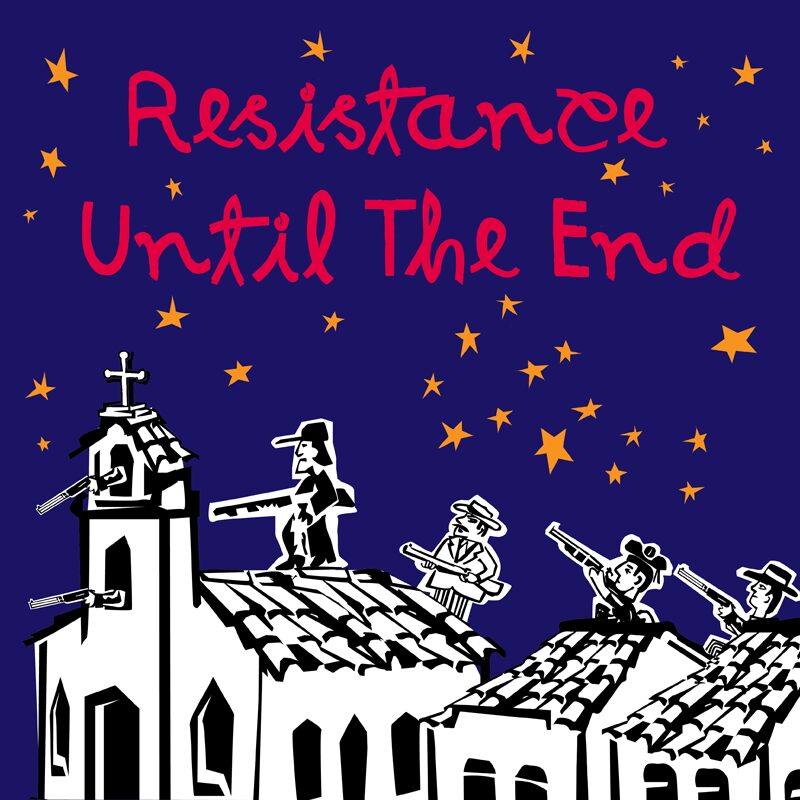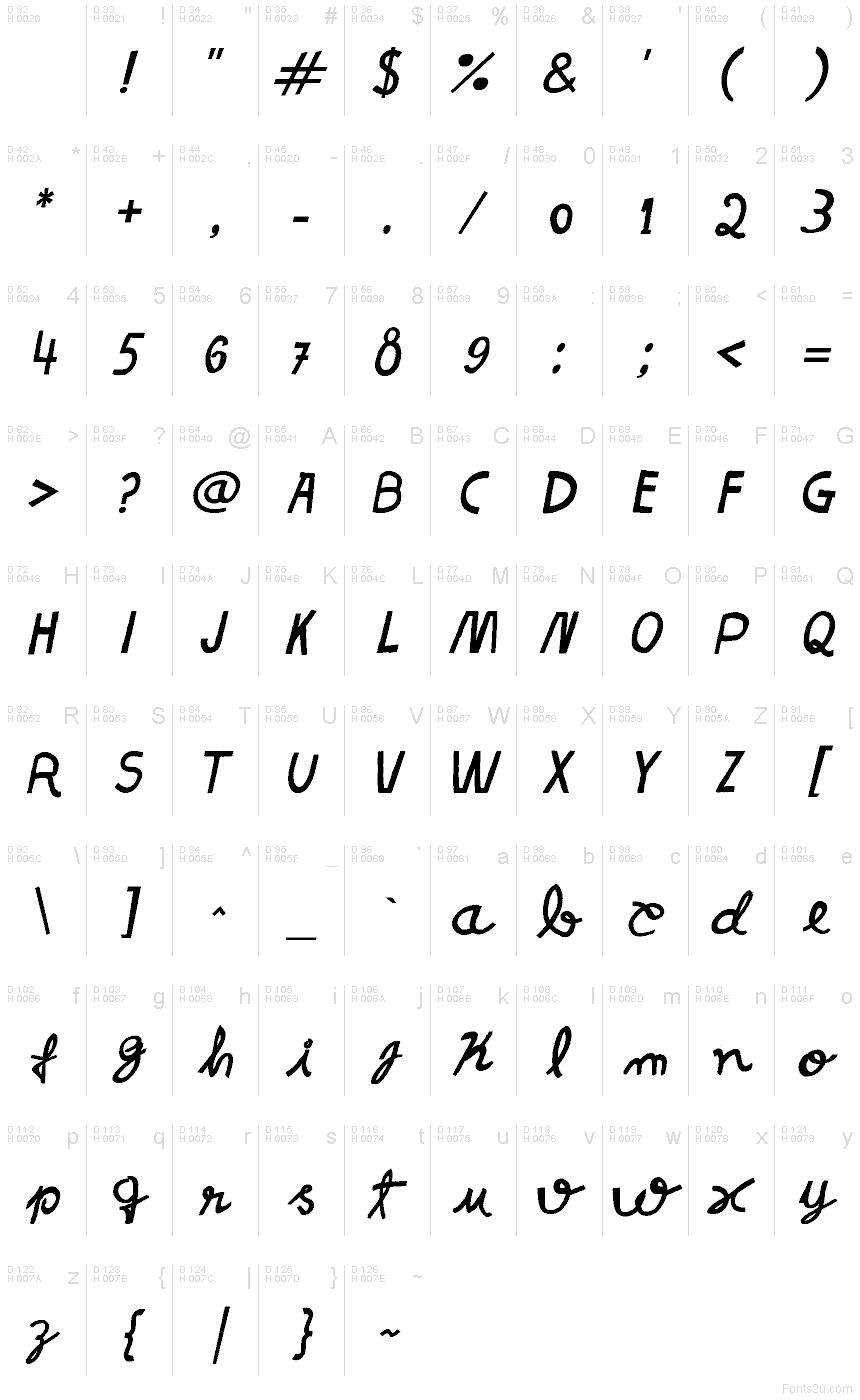
Resistance Until The End Italic
Resistance Until The End Italic font by Galdino Otten Fonts is a free cartoon display typeface with a wiry, slanted sprint that feels scribbled under pressure. Letters hook and sway with scratchy ink texture, giving headlines a tense, hand-made urgency. As part of the Resistance Until The End family, it carries a raw energy that reads fast and hits hard.
Using Resistance Until The End Italic, you get instant attitude for gig posters, protest graphics, thriller titles, escape-room branding, edgy apparel, skate stickers, and Halloween invites. The tight rhythm and lively tilt pull eyes through a line, even at large sizes. Pair this free font with a clean grotesk for body copy and let its rough script handle the shout.